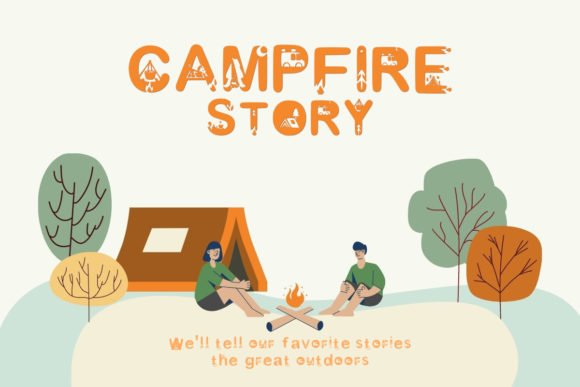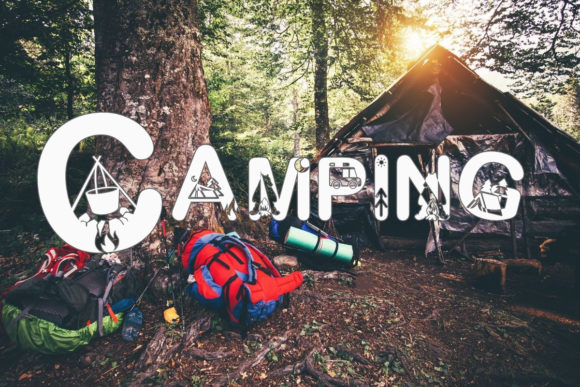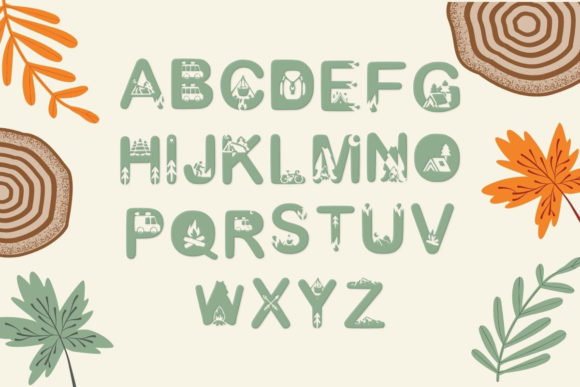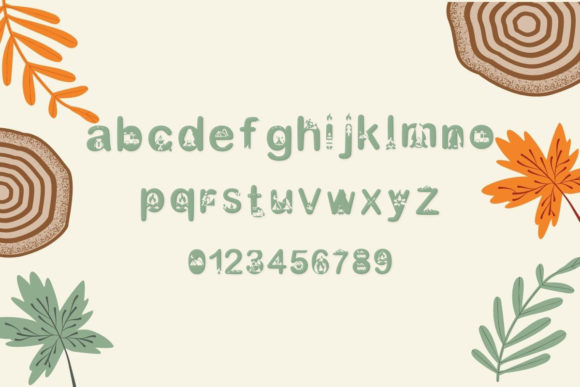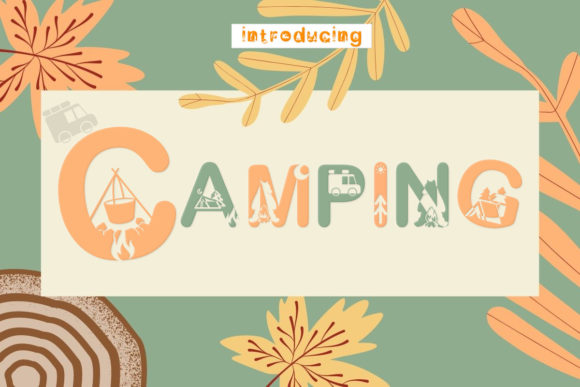
The Joy of Camping Font: A Designer’s New Best Friend
I still remember the design project that led me to discover the Camping Font. I was working on a party invitation for a client’s kid’s birthday bash, and I was determined to create something that would make the event feel extra special. As I scrolled through font after font, nothing seemed quite right – until I stumbled upon Camping Font. Its bubbly, playful vibe instantly captured the essence of a fun-filled party, and I knew I had found the perfect fit.
An Honest Review of Camping Font
• ✨ Cute and bubbly personality: Camping Font is the epitome of youthful and joyful typography. Its unique design makes it perfect for projects that require a playful touch.
• ✅ Highly versatile: Whether you’re designing party invitations, social media graphics, or craft projects, Camping Font adapts seamlessly to various contexts.
• 💫 Easy to read: Despite its decorative nature, Camping Font remains surprisingly legible, making it a great choice for headlines and short paragraphs.
While Camping Font is an excellent choice for many projects, it’s not without its limitations. For instance:
• 🤔 Not suitable for body text: Due to its decorative nature, Camping Font is best used for headlines, titles, or short phrases rather than lengthy paragraphs.
• ⚠️ Limited use in formal contexts: This font is clearly designed for fun and playful applications, so it’s not the best fit for formal events, business projects, or professional documents.
The Story Behind Camping Font
Camping Font was designed with the intention of capturing the carefree spirit of summer camps and outdoor adventures. Its creator aimed to craft a typeface that would evoke feelings of happiness and youthfulness, making it perfect for any project that requires a playful touch.
Q: What type of projects is Camping Font best suited for?
A: Camping Font is ideal for party invitations, social media graphics, craft projects, and any design that requires a youthful and joyful vibe.
Q: Is Camping Font difficult to read?
A: Despite its decorative nature, Camping Font is surprisingly legible and can be used for short paragraphs and headlines.